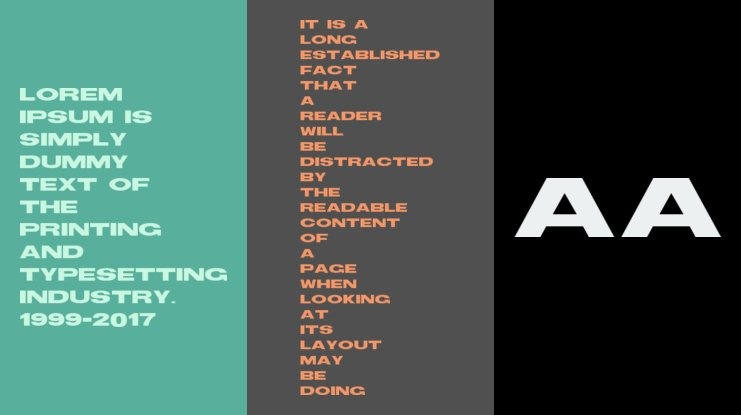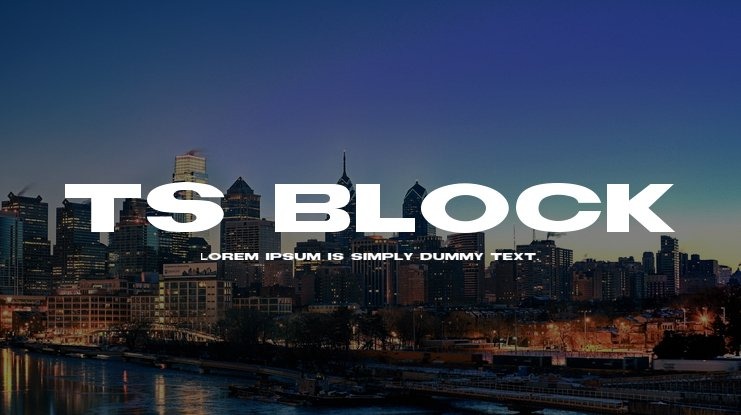
TS Block Font
TS Block Sans Serif Font is a bold sans serif font crafted & designed by Steve Ferrera. This font is impressive and features a clean and elegant font, professionally shaped, and as a result, it will easily match a variety of creations that require a different touch. Add it with confidence to your projects, and you’ll love the results. This typeface is perfect for elegant logos, branding, promotions, book covers, magazine layouts, or simply as a stylish text overlay onto any background image.